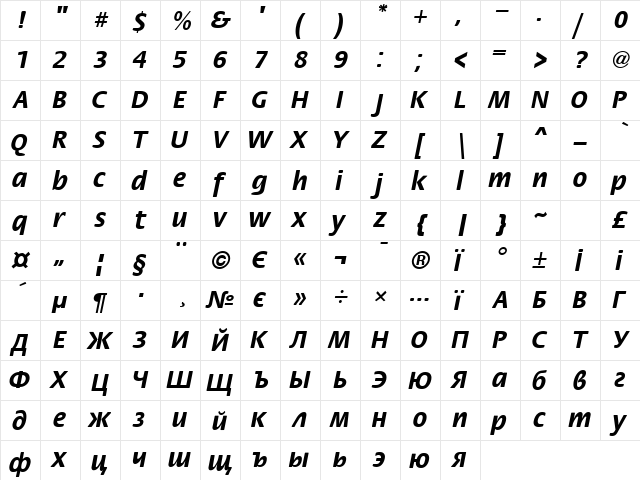
Fiesta Regular
Design Context for Fiesta Typeface
Fiesta is a composed and adaptable typeface that performs quietly and consistently across a wide range of design contexts.